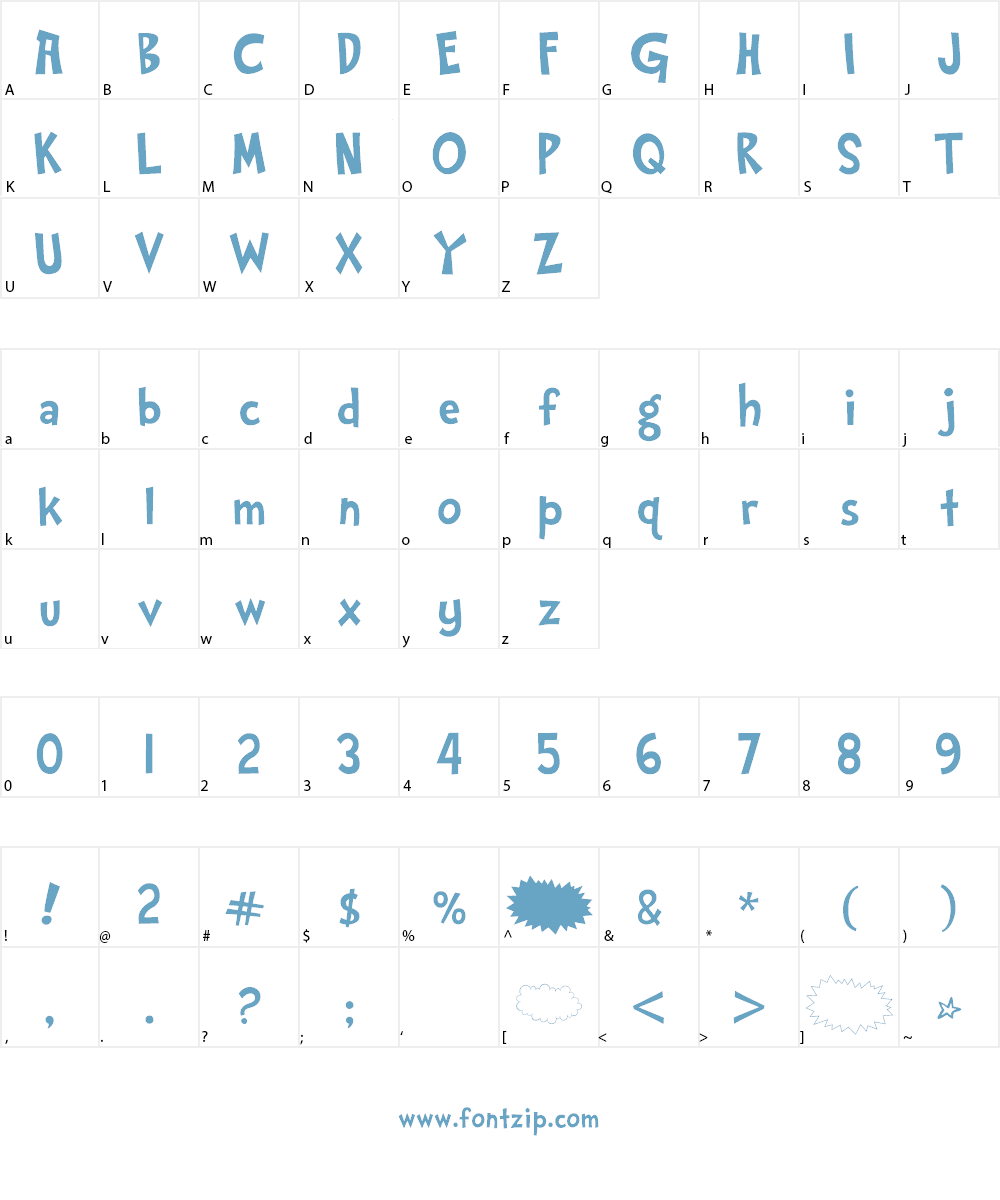
Inspired by the children's TV show Yo Gabba Gabba! Check the full character map for all the hand-drawn shapes as well as alternate versions of the A,B,G characters.
EDIT (Dec. 2012): I have found some new sources and will be making updates to some of the characters. I find these on official DVDs and other products.